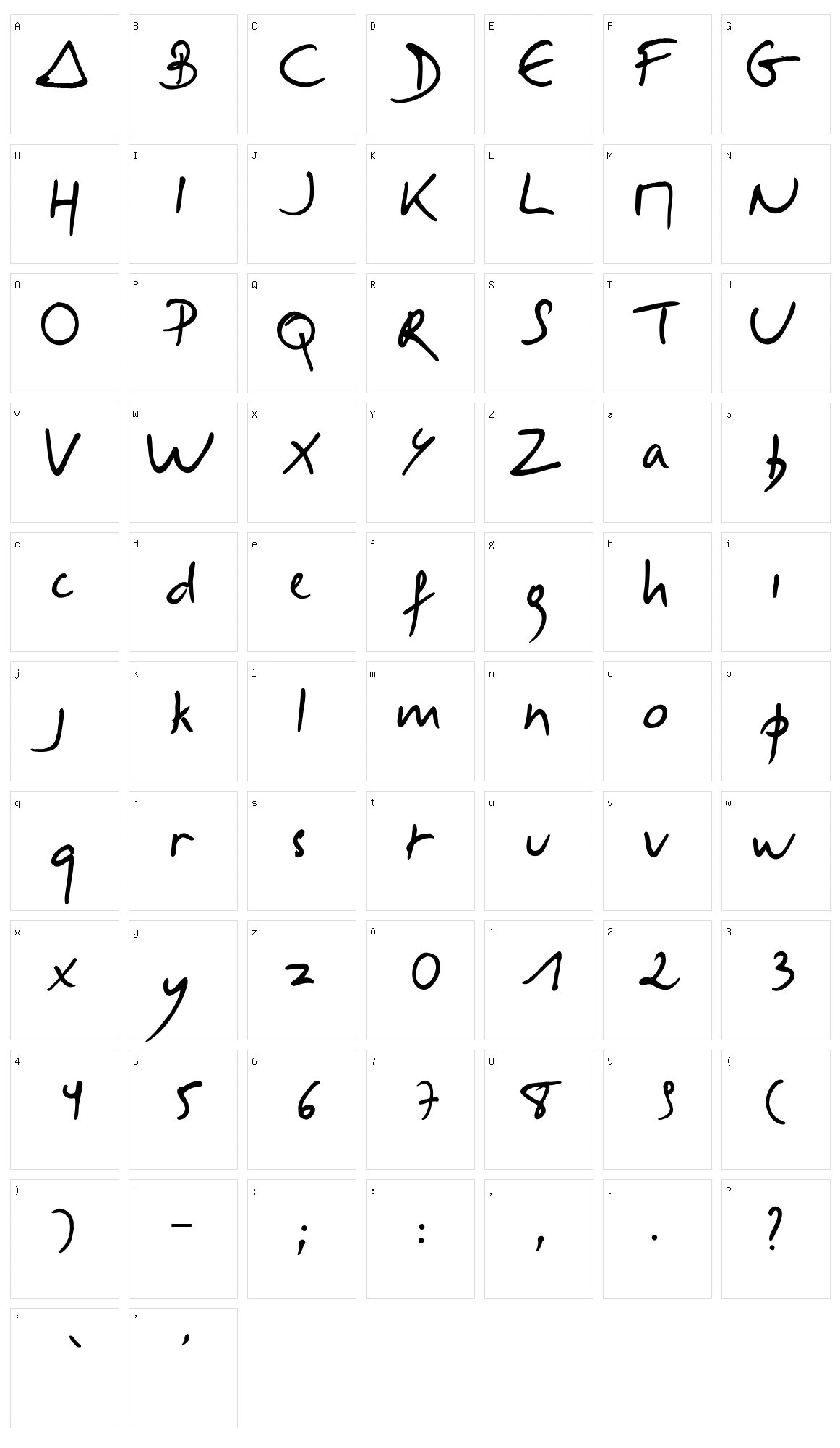
The free font Selus is carefully designed by Serge Paulus, showcasing a thoughtful balance of creativity and usability and falls under the Script font style. When you download the ZIP file, it contains only 22.98 KB of font files, making it lightweight and quick to download. Please review the license details below to understand permitted usage and distribution rights. If license information is not available, we recommend using this font for personal projects only or contacting the author directly for commercial usage permissions.